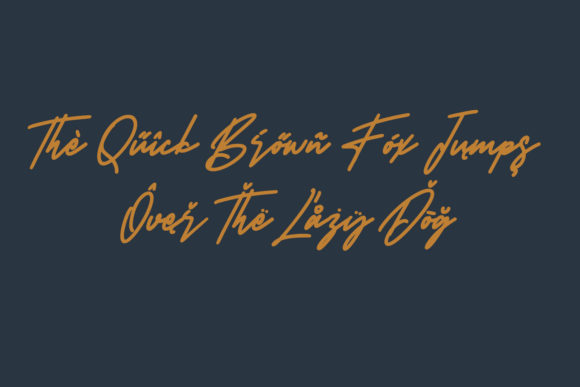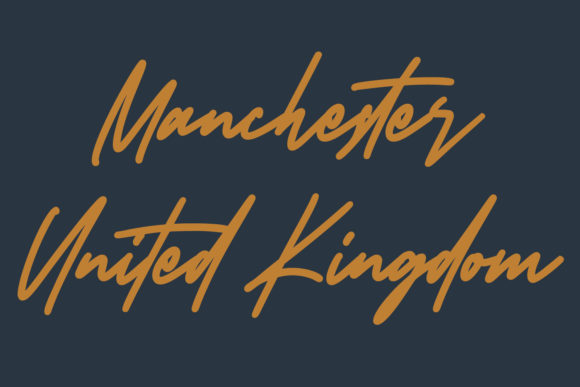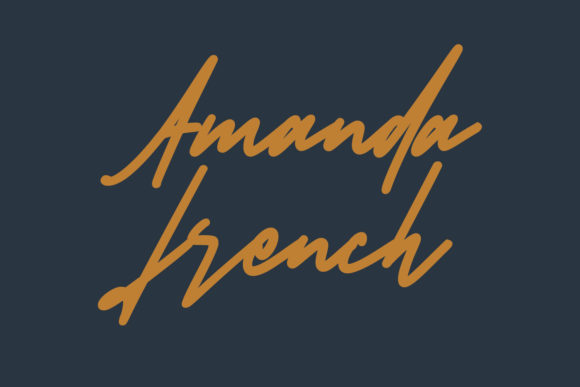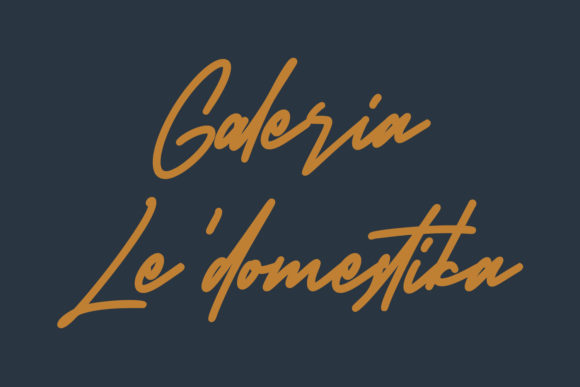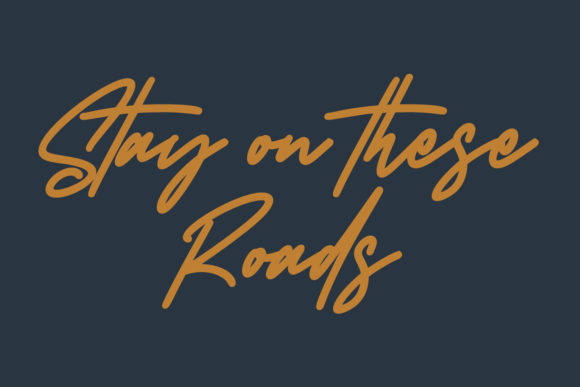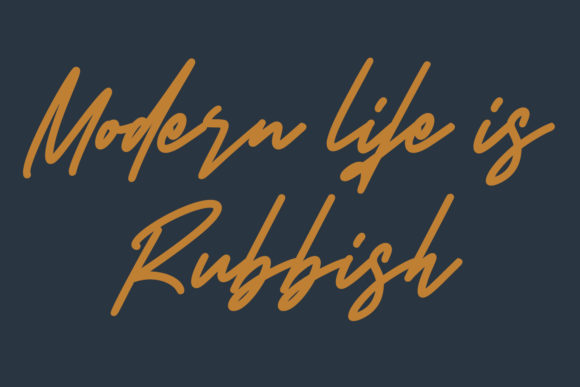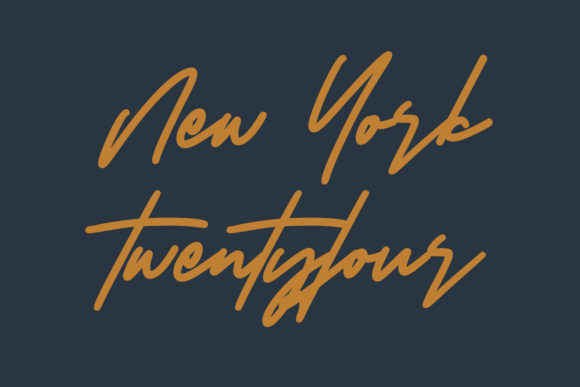
Tarboots Font
About Tarboots Font
Tarboots is a relaxed and flowing script font, featuring the perfect amount of trendiness. Whether you’re using it for crafting, digital designing, presentations or greeting cards making, it’s perfect!